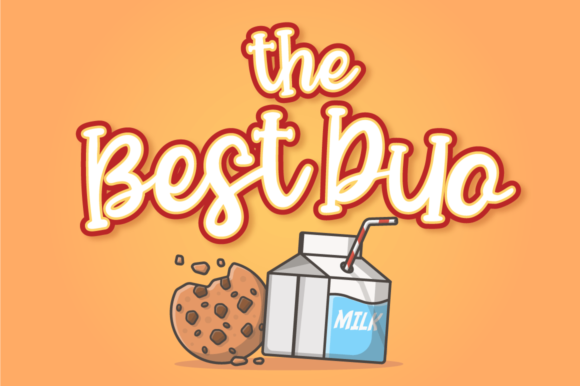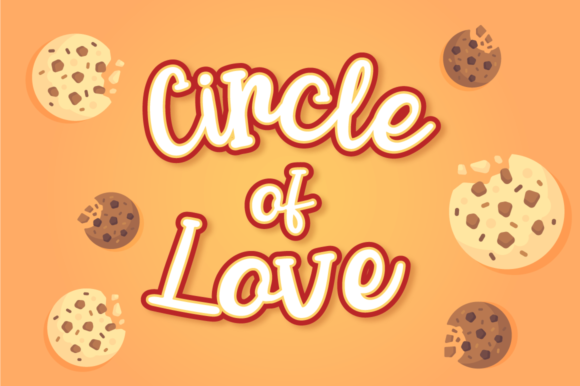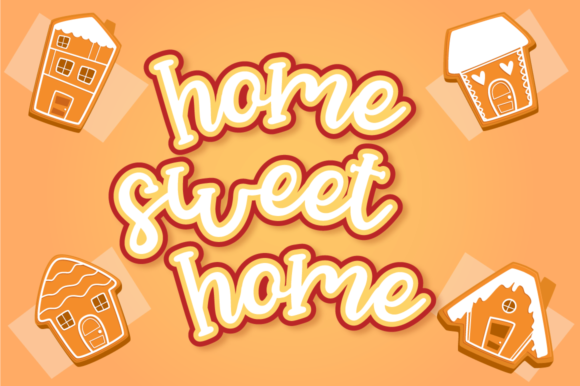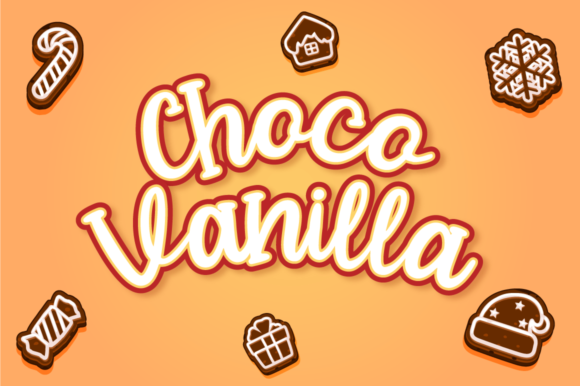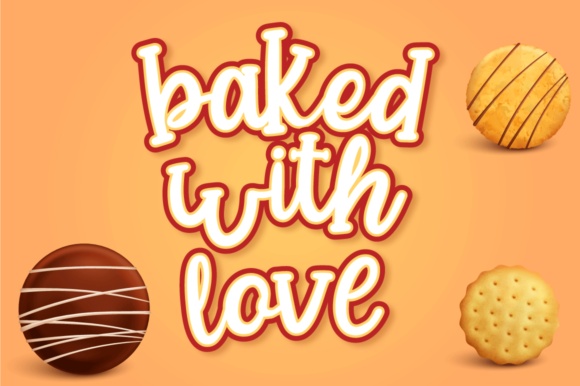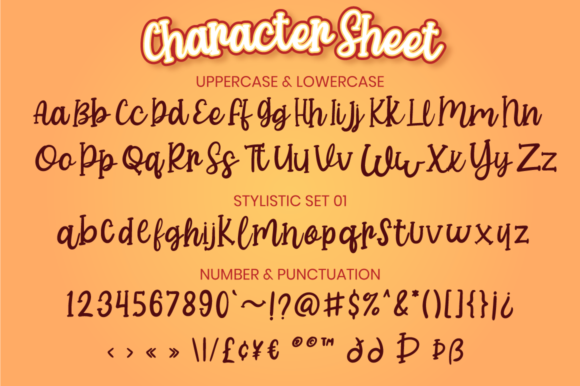
Cookies Party Font: The Perfect Blend of Fun, Quirkiness, and Authenticity
Are you a designer or crafter looking for a font that can add a touch of personality to your creative projects? Look no further than the Cookies Party font! This enchanting handwritten font is designed to bring a sense of fun, quirkiness, and authenticity to any design, making it a true standout.
What is Cookies Party Font?
Cookies Party font is a unique and charming handwritten font that is perfect for adding a personal touch to your designs. Its playful and whimsical style makes it ideal for a wide range of creative projects, from party invitations and greeting cards to branding and packaging.
Key Features of Cookies Party Font
- Handwritten style: Cookies Party font is a genuine handwritten font, giving it a personal and authentic feel.
- Fun and quirky: The font’s playful style makes it perfect for designs that require a touch of whimsy and humor.
- Authentic feel: The font’s unique style gives it a genuine, homemade feel that’s perfect for creating designs that stand out.
- High-quality design: The font is carefully crafted to ensure that it looks great in any design, whether it’s used for headings, body text, or titles.
Why Choose Cookies Party Font?
There are many reasons why designers and crafters choose Cookies Party font for their creative projects. Here are a few:
- Uniqueness: Cookies Party font is a one-of-a-kind font that will add a touch of personality to your designs.
- Versatility: The font is suitable for a wide range of creative projects, from digital designs to print materials.
- Great for branding: The font’s unique style makes it perfect for creating custom branding and packaging designs.
How to Use Cookies Party Font
Using Cookies Party font is easy! Here are a few tips to get you started:
- Pair it with other fonts: Cookies Party font looks great when paired with other fonts, such as sans-serif fonts or script fonts.
- Use it for headings: The font’s bold and playful style makes it perfect for headings and titles.
- Add it to your design toolkit: Cookies Party font is a great addition to any design toolkit, and can be used for a wide range of creative projects.
Here are a few tips for designers and crafters who want to get the most out of Cookies Party font:
- Experiment with different colors: Cookies Party font looks great in a variety of colors, so don’t be afraid to experiment and find the perfect hue for your design.
- Use it for DIY projects: The font’s handmade style makes it perfect for DIY projects, such as party invitations, greeting cards, and craft tutorials.
- Try it with illustrations: Cookies Party font looks great when paired with illustrations and graphics, making it perfect for creating custom illustrations and designs.
Cookies Party font is a unique and charming handwritten font that’s perfect for adding a touch of personality to your creative projects. Its playful and whimsical style makes it ideal for a wide range of designs, from party invitations and greeting cards to branding and packaging. With its high-quality design and easy-to-use style, Cookies Party font is a great addition to any design toolkit.